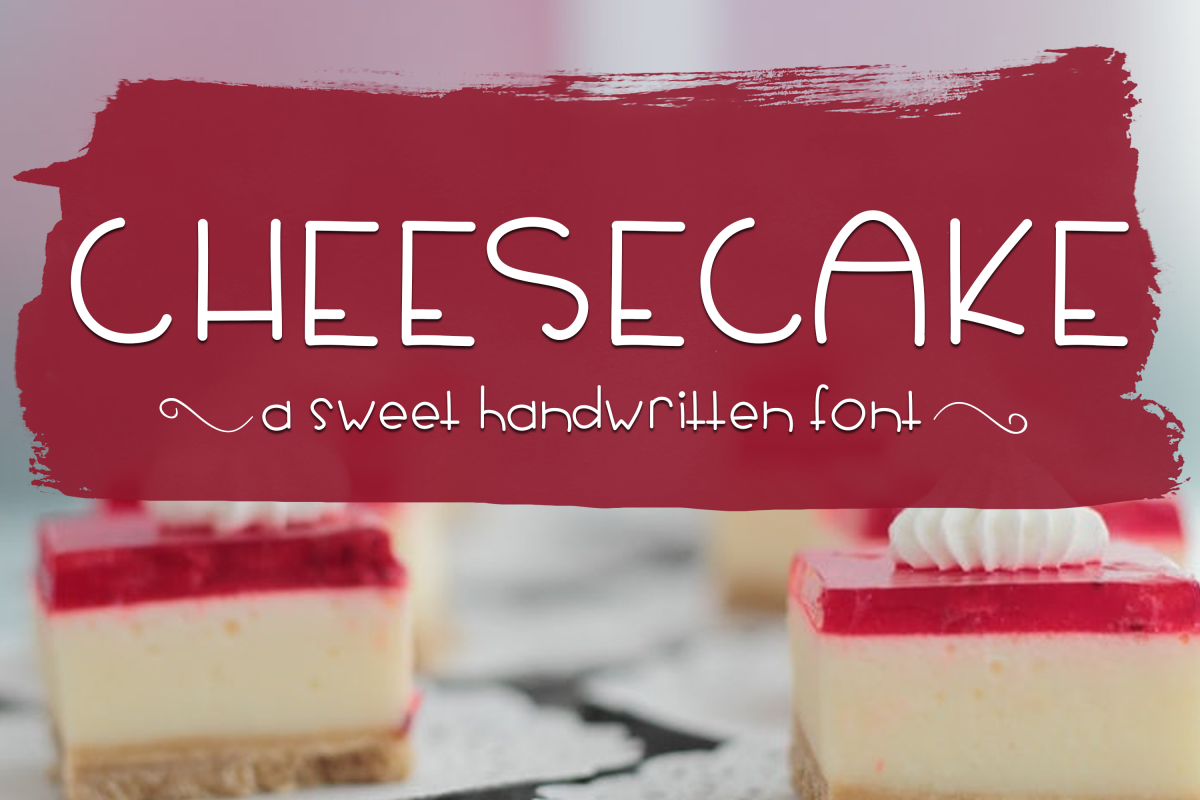
Cheesecake - A Sweet Handwritten Font
KACheesecake
Cheesecake is a cute handwritten font.
The letters are big and youthful.
This font is perfect for quotes, headings, blogs, logos, invitations and more!
This font does include accent characters.